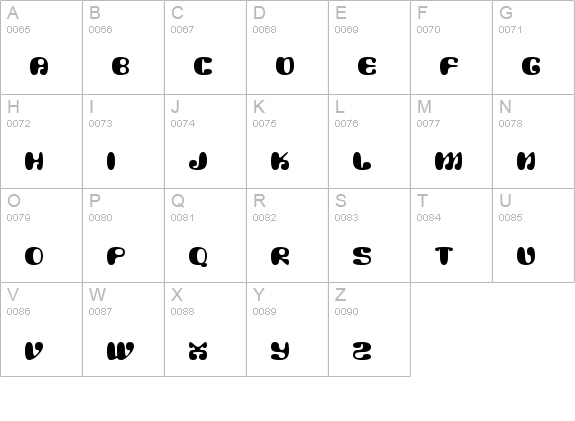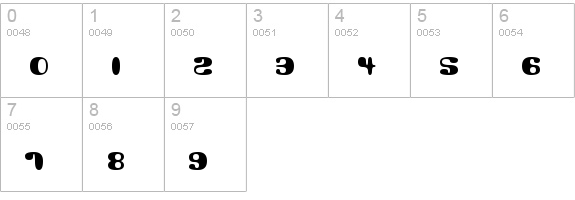
Alien Mashrooms Font Details
Alien Mashrooms is a free for personal use font in the Fancy > Comic category, designed by Darrell Flood. It has been downloaded 69 times and is available for Windows, Mac and Linux.
Alien Mashrooms font is an otherworldly creation that will transport you to a mysterious and fantastical realm. This unique and eye-catching font features quirky and whimsical letterforms that seem to come straight from outer space. The Alien Mashrooms font is perfect for adding a touch of extraterrestrial charm to your design projects, whether you're creating posters, invitations, or branding materials.